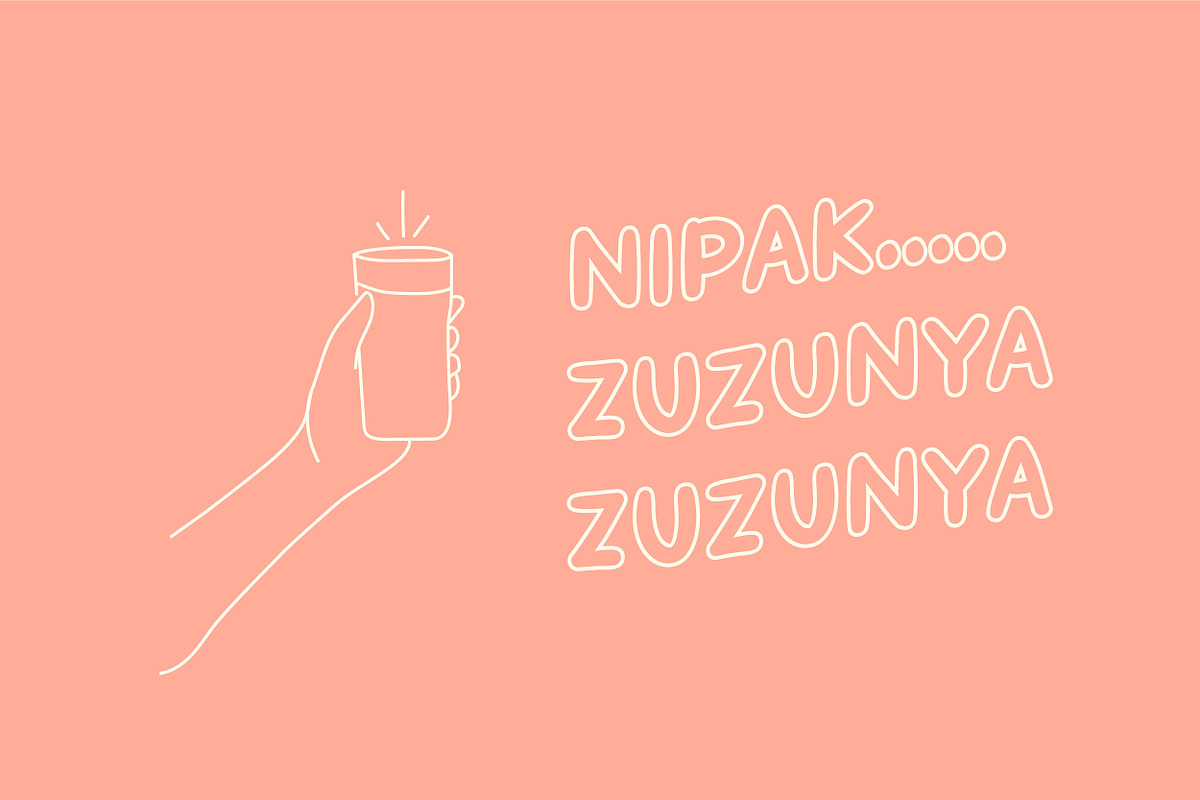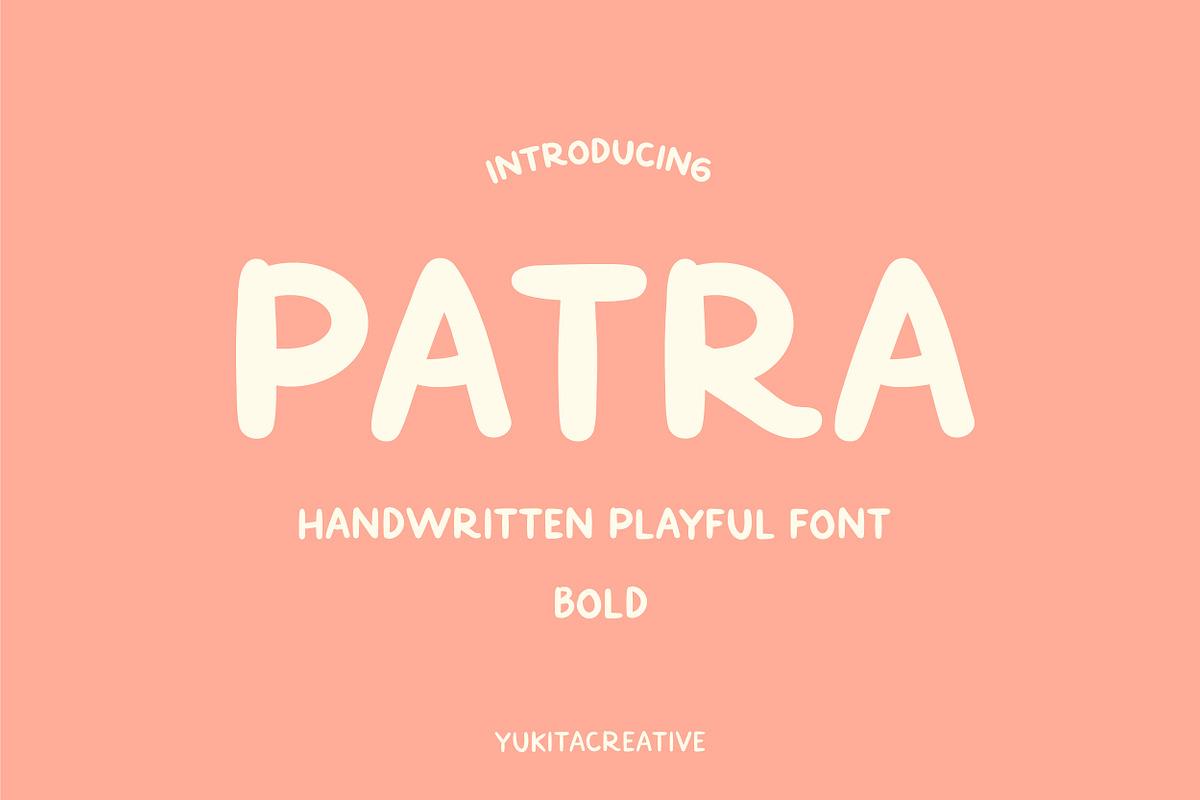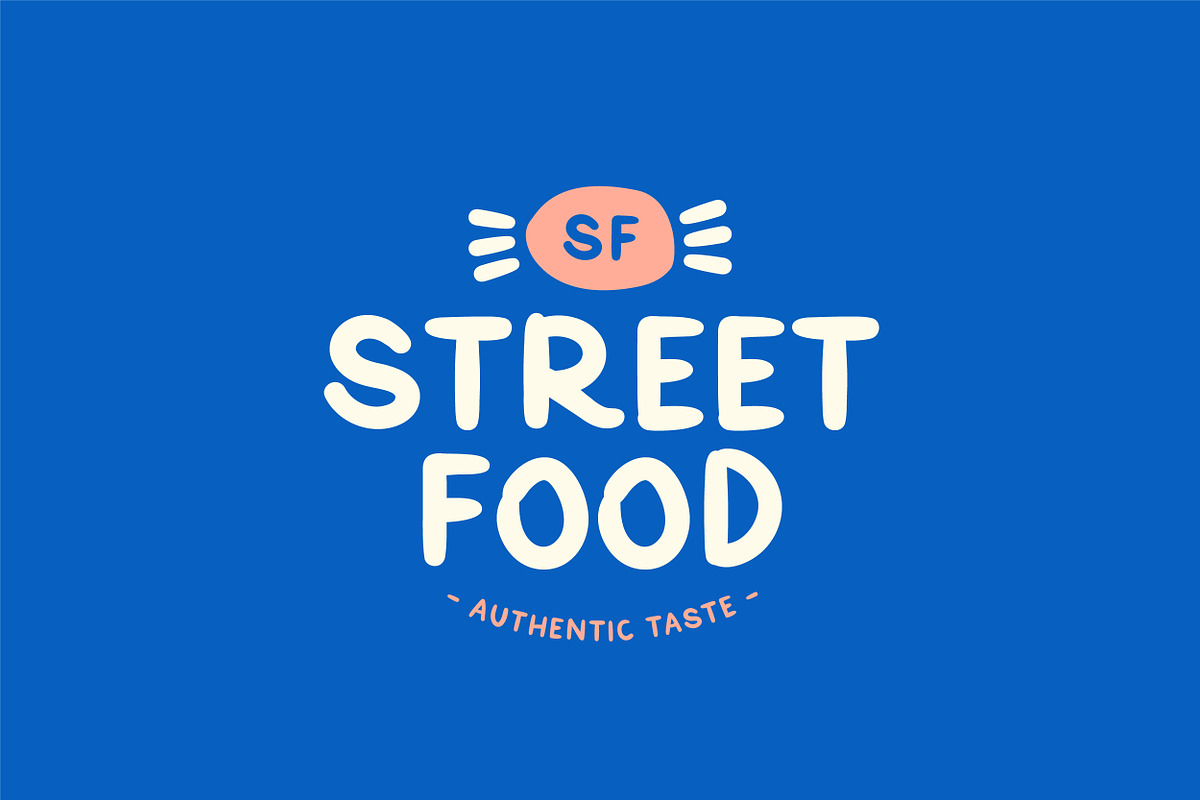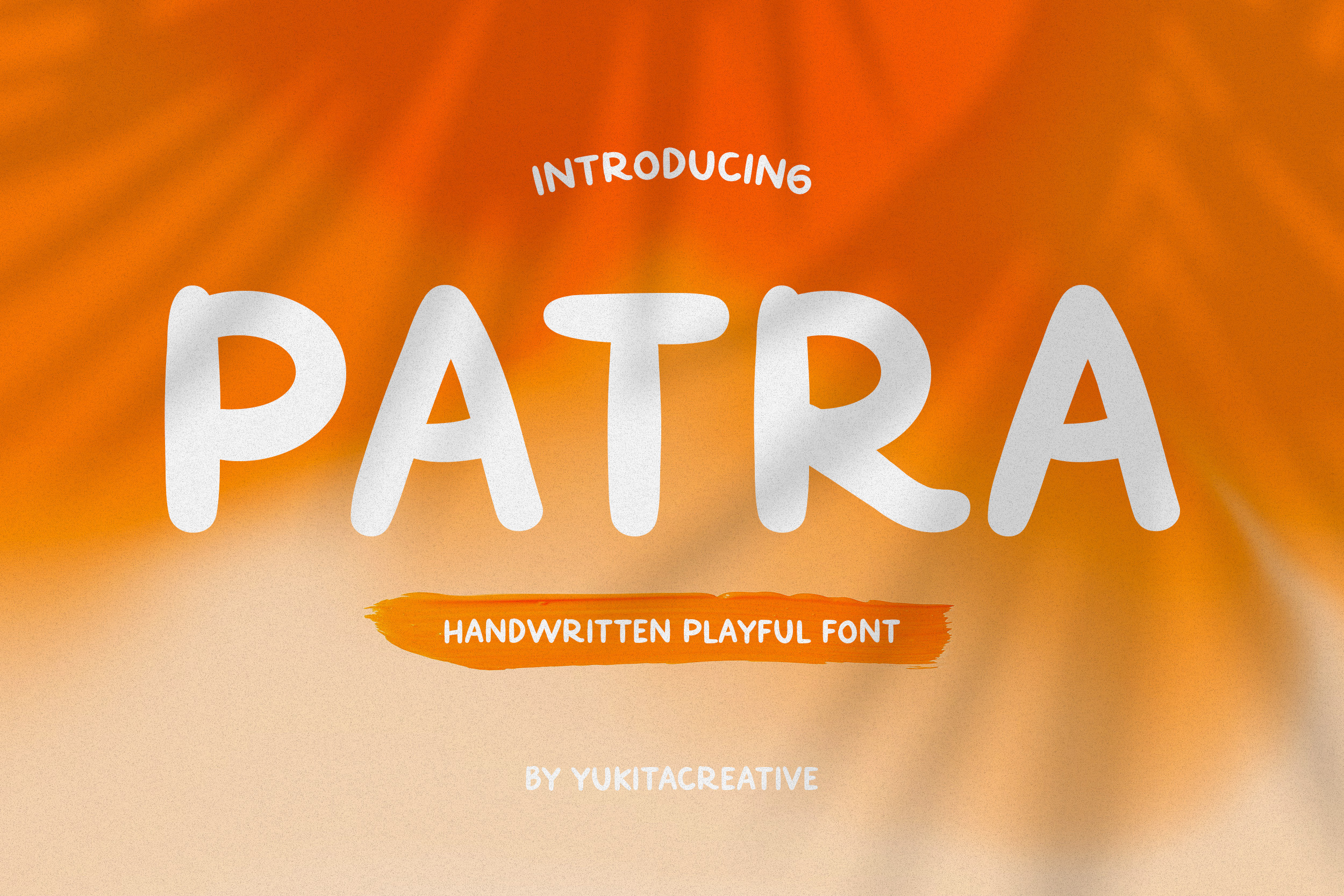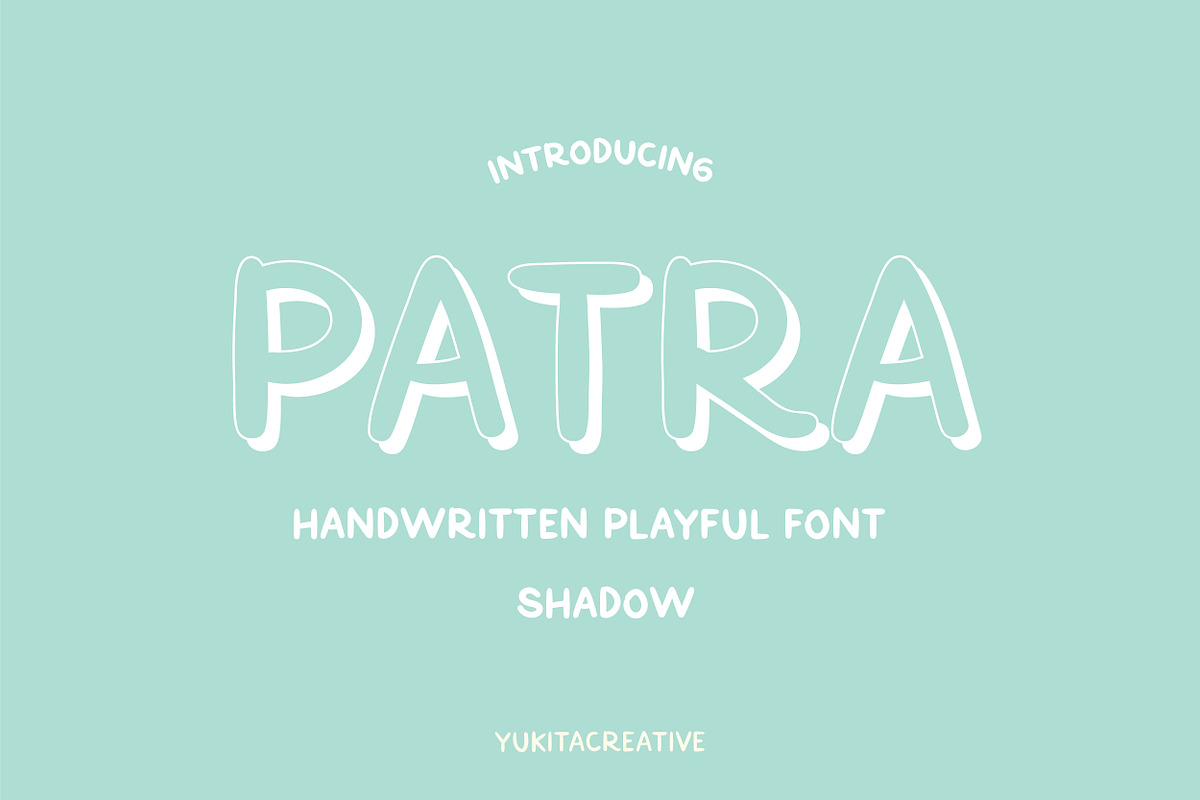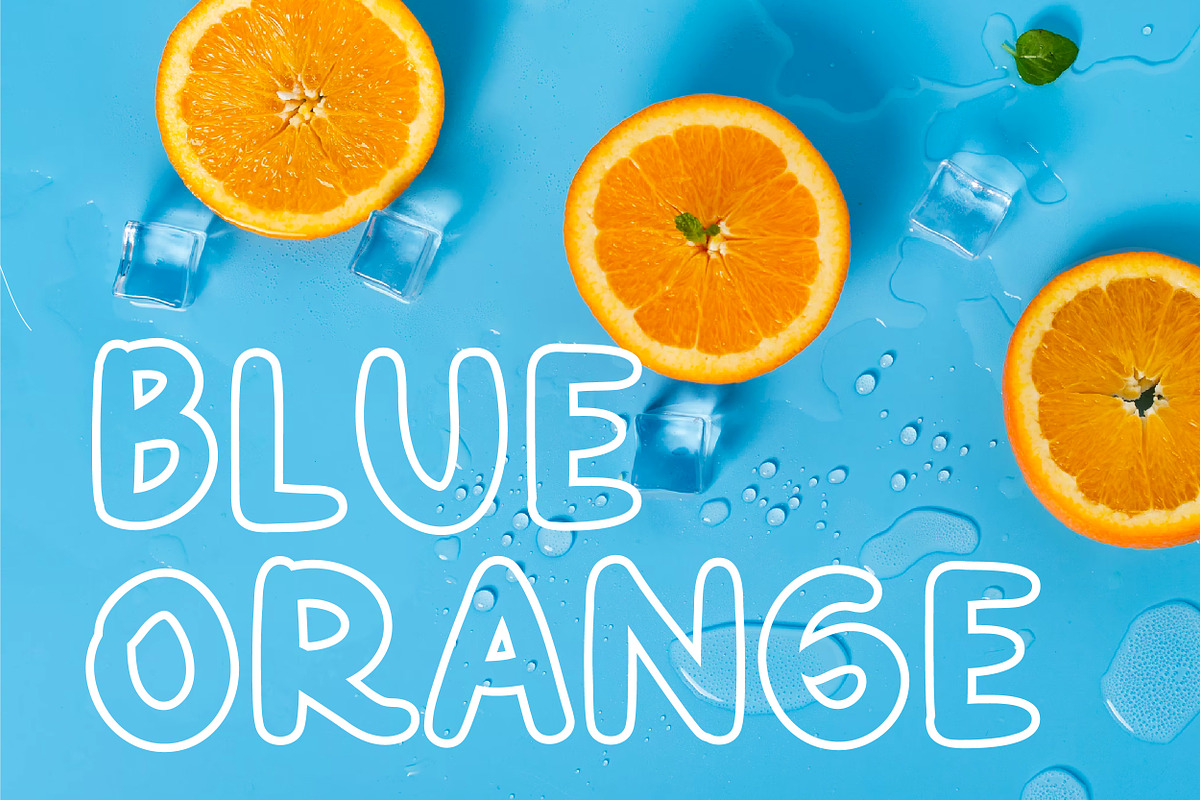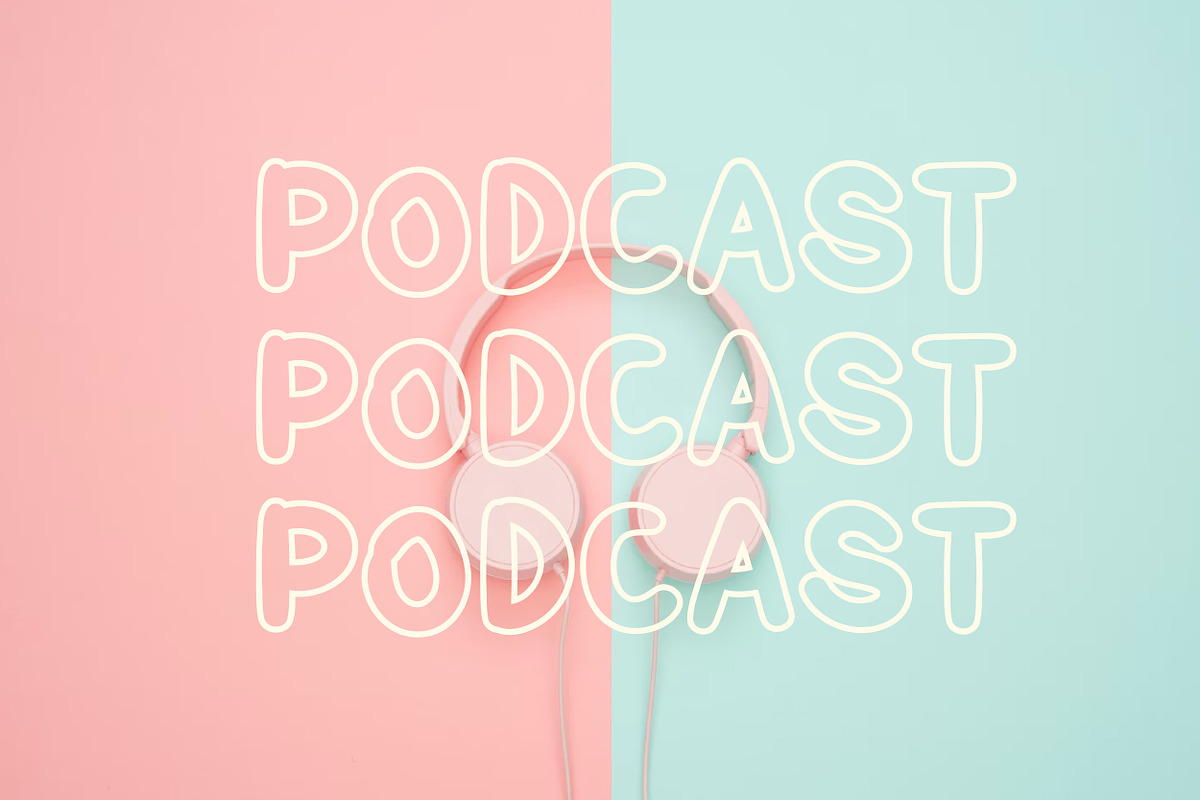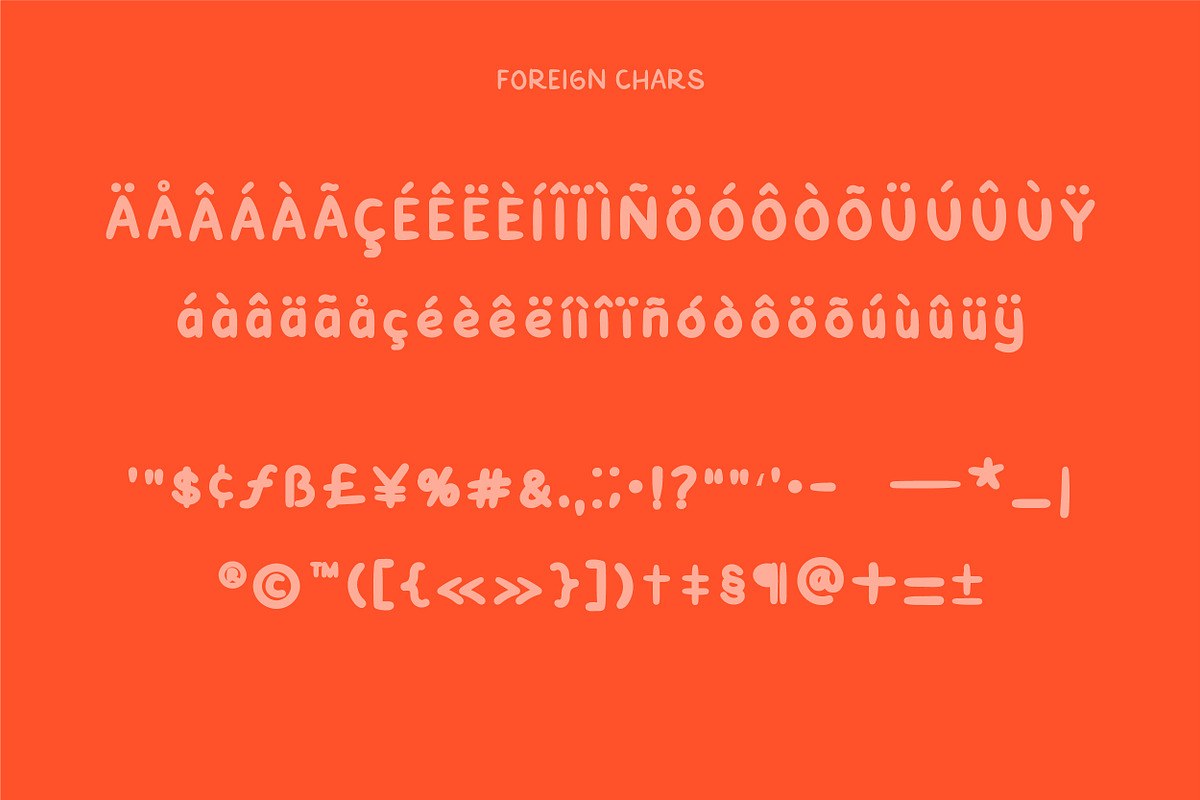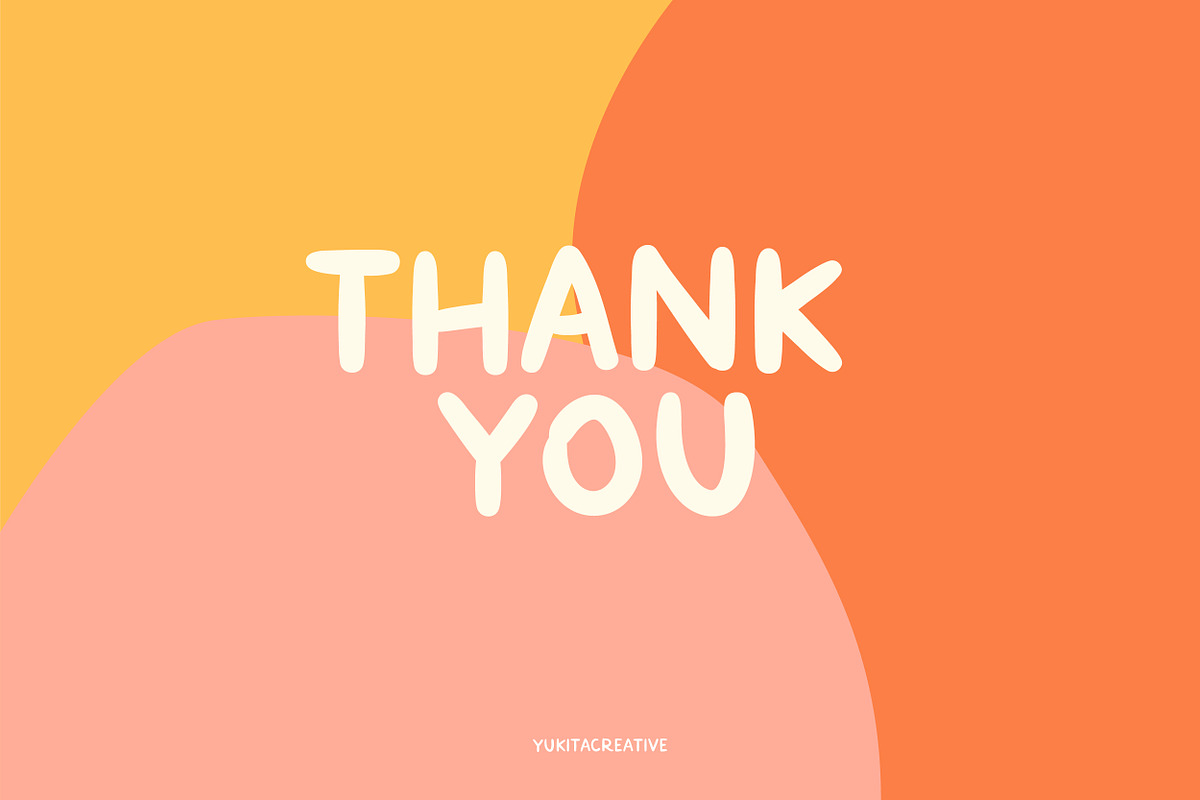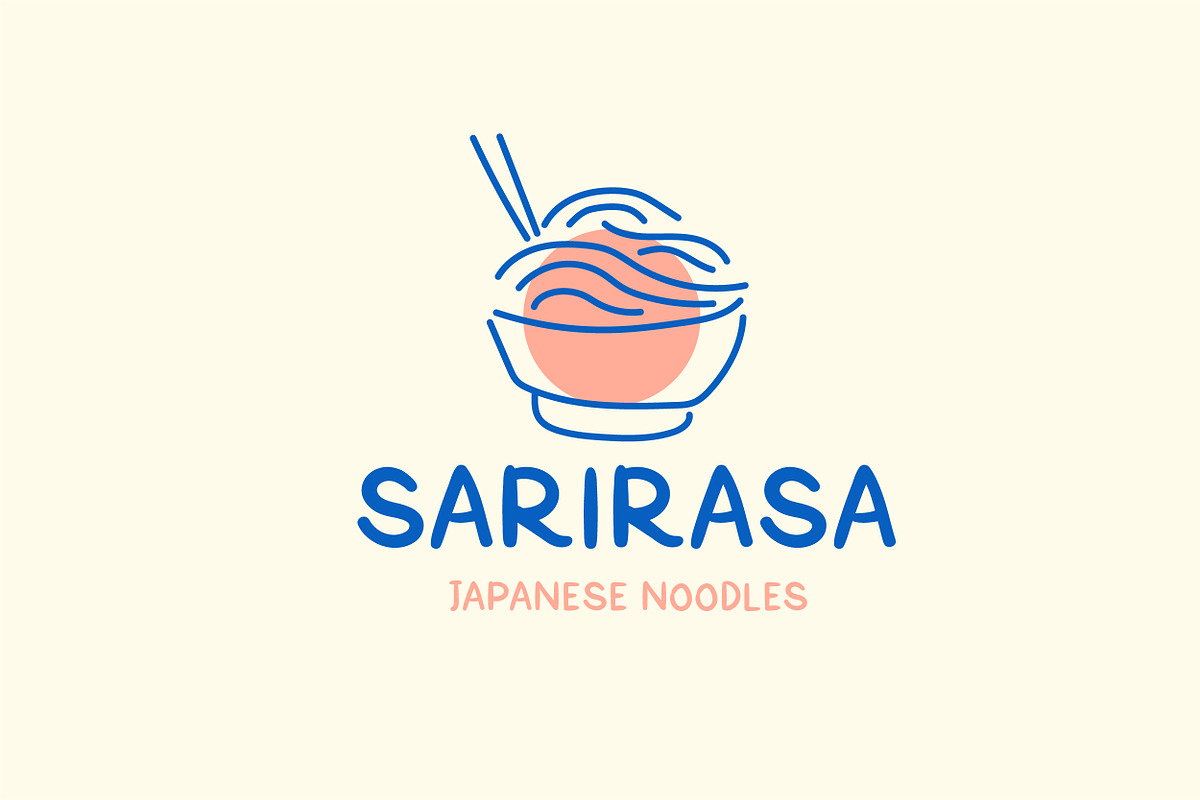
PATRA Playful Font
Let's make identity more fun with Patra Playful Font
This font comes in both outline and fill formats so you can style it in a number of ways. This is a basic hand lettering font, Diverse to use anywhere cute quite prominent wherever used.
This font is perfect for designing fun branding, editorial headers, products, Instagram announcements, web banners, book covers, logos, inspirational quotes, and more!
- Bold
- Outline
- Shadow
- Filled
- Uppercase Characters
- Lowercase characters
- Symbols & Punctuation